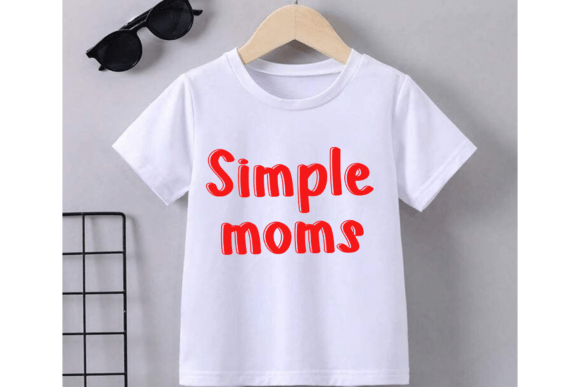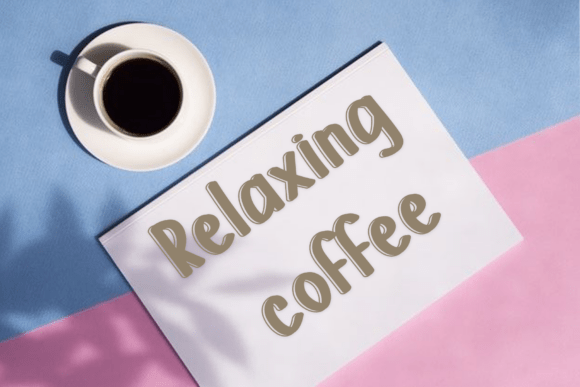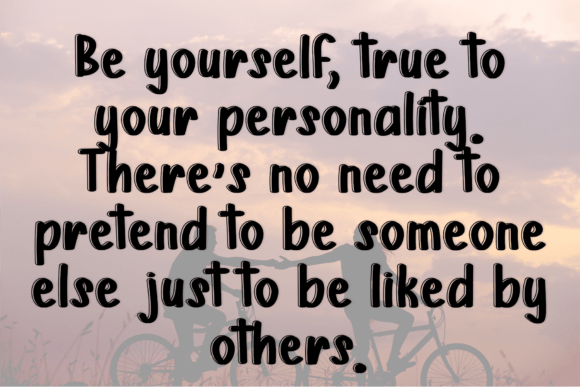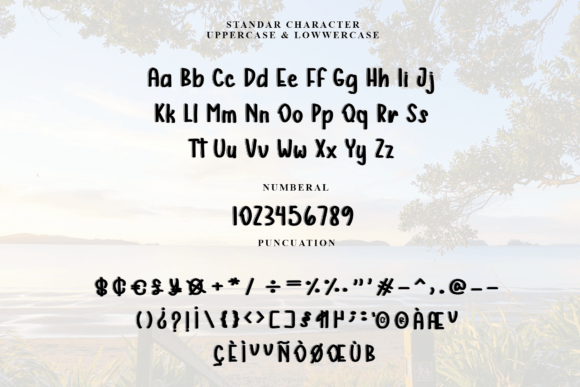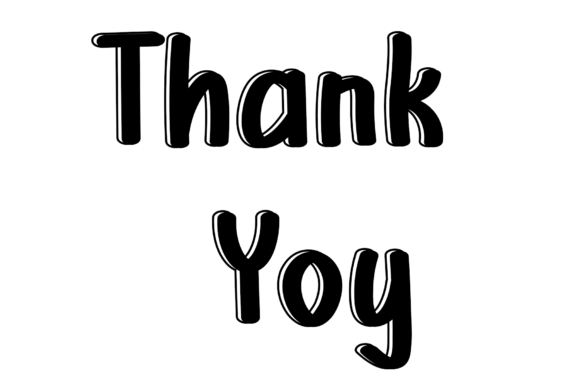
Introducing Digital Bookmark Font: The Ultimate Display Font for Digital Creations
In the vast digital landscape, making your content stand out can be a daunting task. However, with the right typography, you can instantly capture attention and convey your message with impact. This is where the Digital Bookmark Font comes into play – a playful, chunky, and unique handwritten display font designed specifically for the digital space.
What Makes Digital Bookmark Font Special?
Digital Bookmark Font boasts bold, bubble-like letterforms with a distinct thick outline, giving it a friendly, comic-style aesthetic that’s hard to miss. Its unique design makes it perfect for a wide range of digital applications, from digital planner titles and educational apps to sticker designs and YouTube thumbnails. Whether you’re a designer, educator, or content creator, this font is sure to elevate your projects with its energetic, fun, and memorable look.
Key Features of Digital Bookmark Font
- Playful and Chunky Design: The font’s bold and bubbly letterforms are designed to grab attention and add a touch of playfulness to your digital creations.
- Unique Handwritten Aesthetic: With its distinct thick outline, Digital Bookmark Font offers a friendly and approachable look that’s perfect for engaging your audience.
- High Visual Impact: The font’s chunky design and bold letterforms ensure that your message stands out in the digital crowd.
- Versatile: From digital planners and educational apps to sticker designs and YouTube thumbnails, this font is ideal for a wide range of digital projects.
Perfect for Digital Designers and Crafters
As a designer or crafter, you’re constantly on the lookout for fonts that can help you create visually appealing and engaging content. Digital Bookmark Font is designed with you in mind. Its unique aesthetic and versatility make it an excellent addition to your font library, allowing you to add a touch of personality and whimsy to your projects.
Use Cases for Digital Bookmark Font
So, where can you use Digital Bookmark Font? The possibilities are endless! Here are a few ideas to get you started:
- Digital Planners: Add a playful touch to your digital planner titles and make your content stand out.
- Educational Apps: Use Digital Bookmark Font to create engaging and interactive educational content that kids and adults will love.
- Sticker Designs: Create fun and colorful stickers with a unique and eye-catching font that’s sure to grab attention.
- YouTube Thumbnails: Make your YouTube thumbnails pop with Digital Bookmark Font and increase your video’s click-through rate.
Why Choose Digital Bookmark Font?
With so many fonts available, why choose Digital Bookmark Font? Here are a few reasons why this font stands out:
- Unique Design: Digital Bookmark Font offers a unique and distinctive design that’s sure to set your content apart.
- High-Quality: This professional font is designed to deliver high-quality results, even at large sizes.
- Easy to Read: Despite its bold and chunky design, Digital Bookmark Font is easy to read, making it perfect for digital content.
In conclusion, Digital Bookmark Font is a versatile and engaging display font that’s perfect for digital designers and crafters. Its unique aesthetic, playful design, and high visual impact make it an excellent choice for a wide range of digital projects. Whether you’re looking to create engaging educational content, eye-catching stickers, or attention-grabbing YouTube thumbnails, Digital Bookmark Font is sure to deliver. So why wait? Add Digital Bookmark Font to your font library today and take your digital creations to the next level!